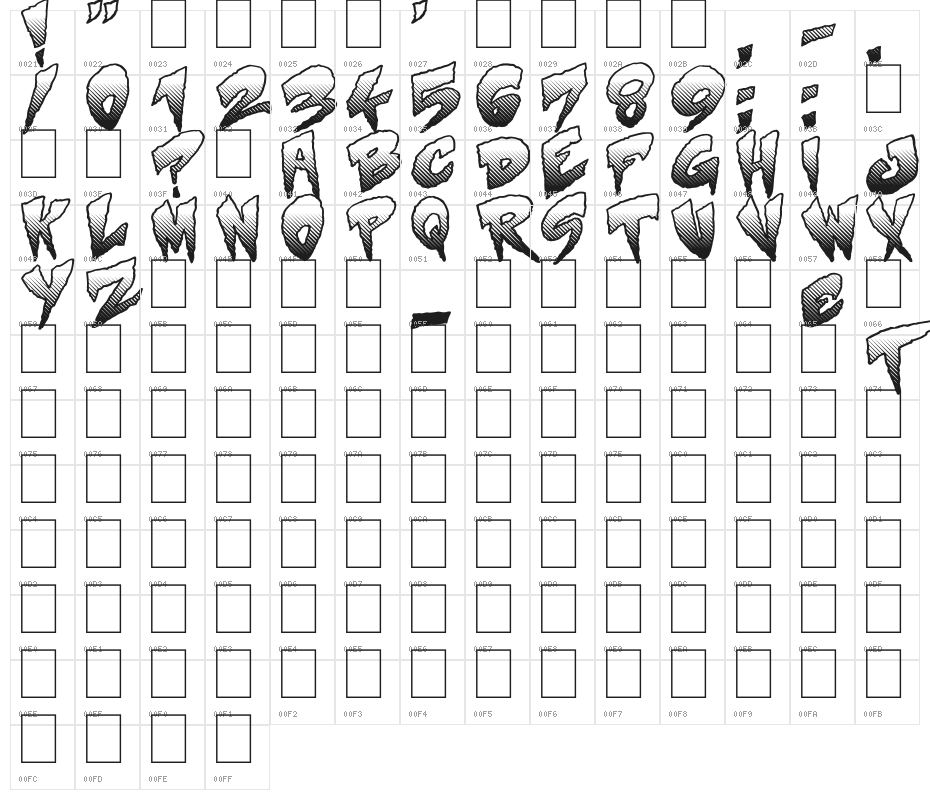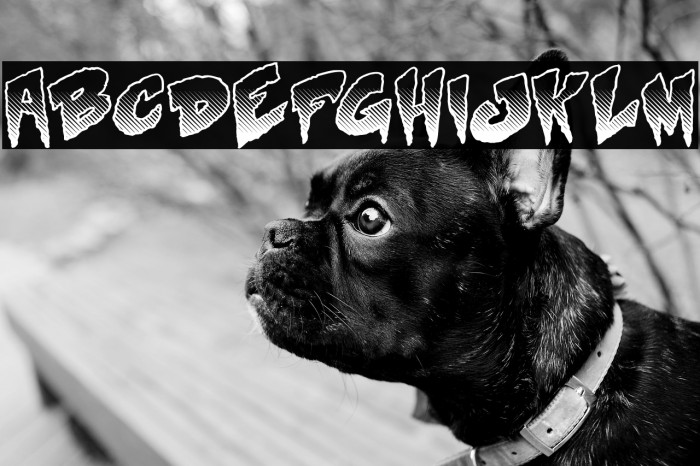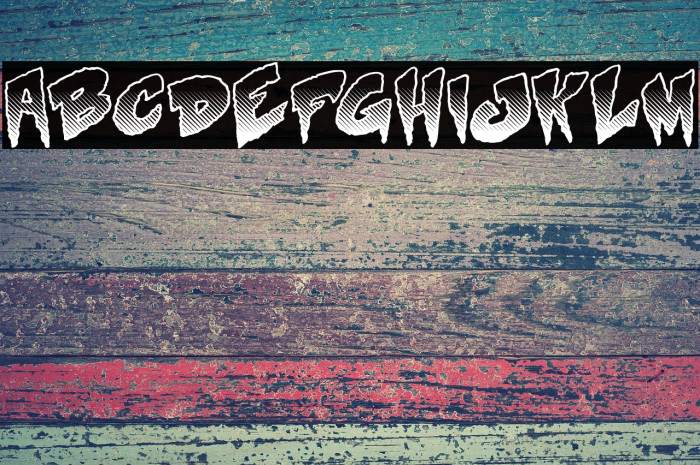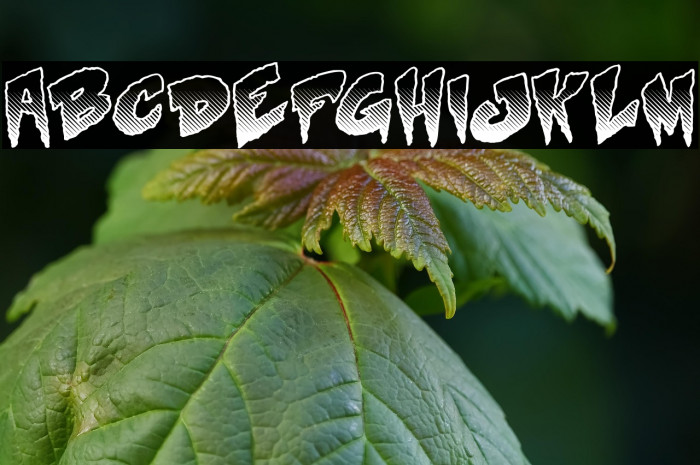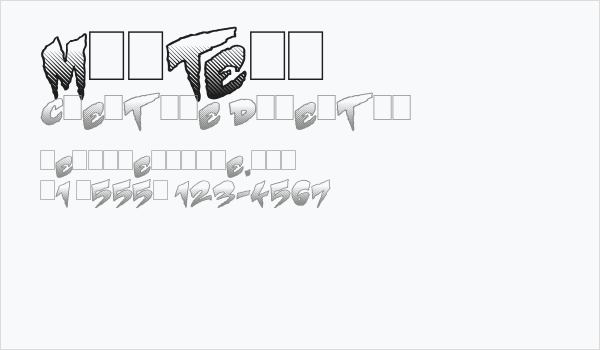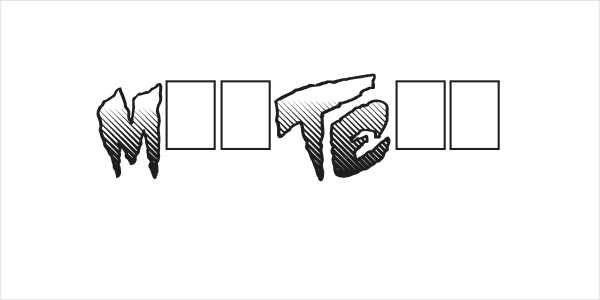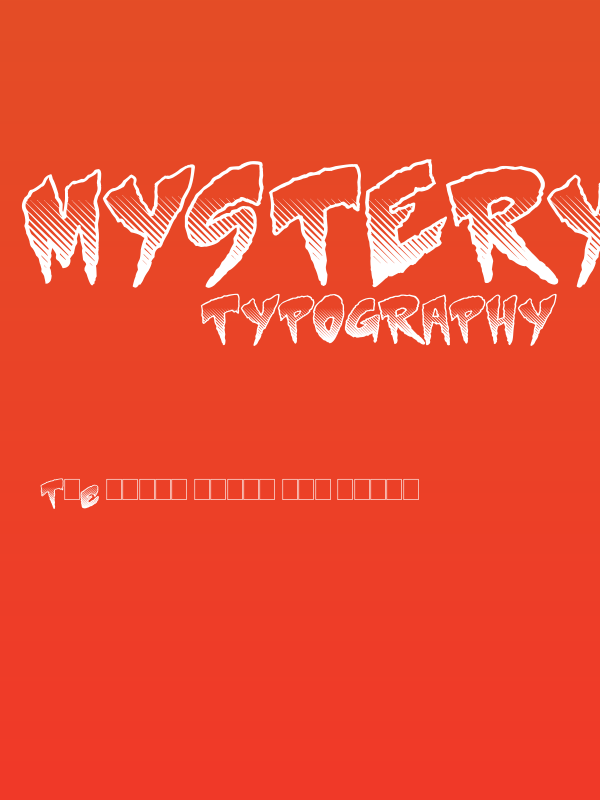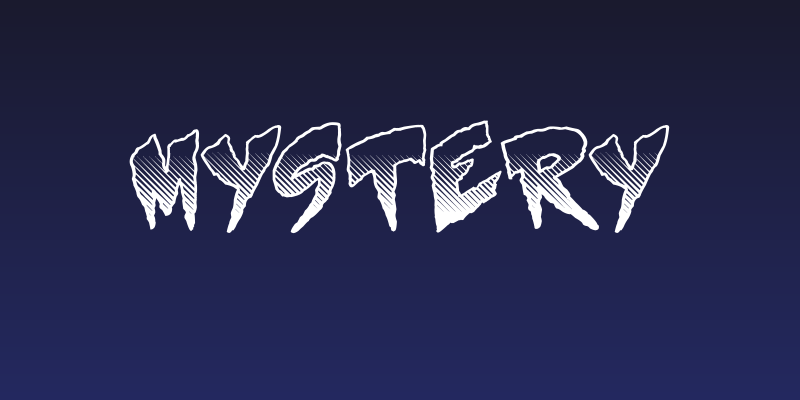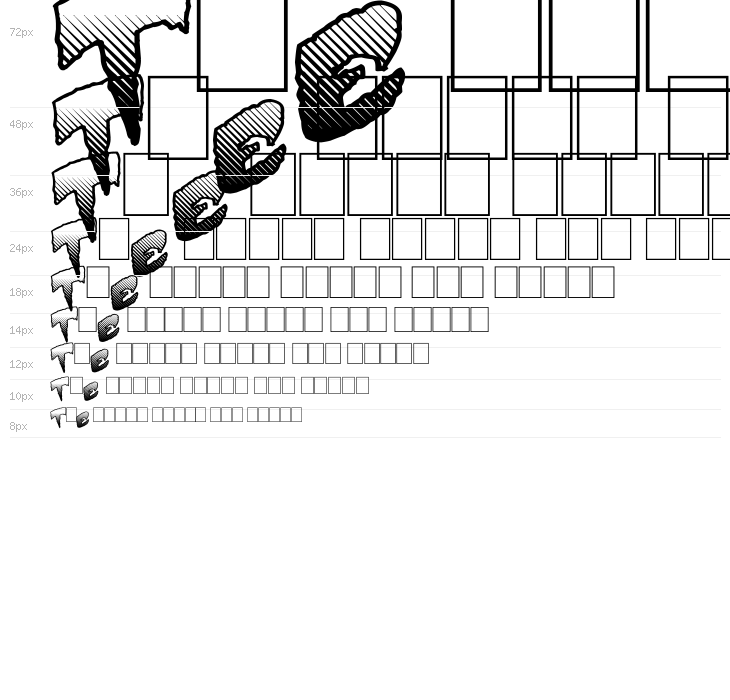
Mystery Font
Mystery Description
This font features a bold, dynamic style with a strong 3D effect, characterized by thick, shadowed strokes that create a sense of depth and movement. The uppercase letters are particularly striking, with sharp angles and a slightly slanted orientation that adds to the energetic feel. The numbers and special characters maintain this bold, impactful design, making them stand out. The overall appearance is reminiscent of comic book lettering, with a playful yet assertive presence. The font's unique shading and outline give it a textured look, enhancing its visual appeal and making it suitable for eye-catching designs.
| Overall Style | Comic, Energetic, Playful |
| Use Case | Headlines, Posters, Logos |
| Proposed Projects | Ideal for comic books, graphic novels, posters, and any project requiring a bold, attention-grabbing typeface. |